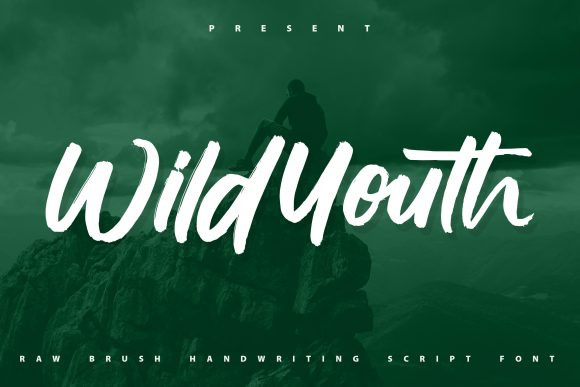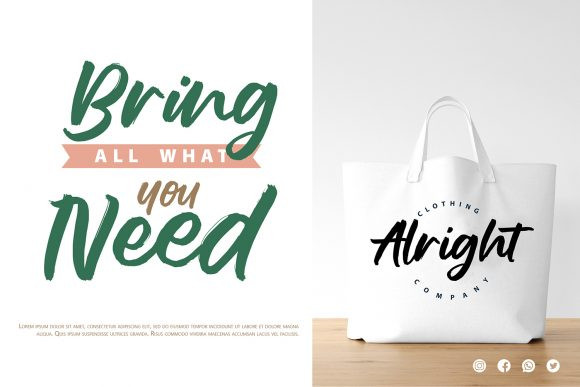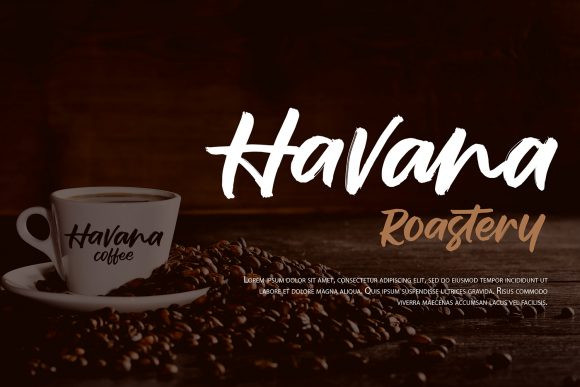
Wildyouth Font
Wildyouth is an unique handwritten font. Whether you’re using it for crafting, digital designing, presentations, or greeting card making, it’s perfect!